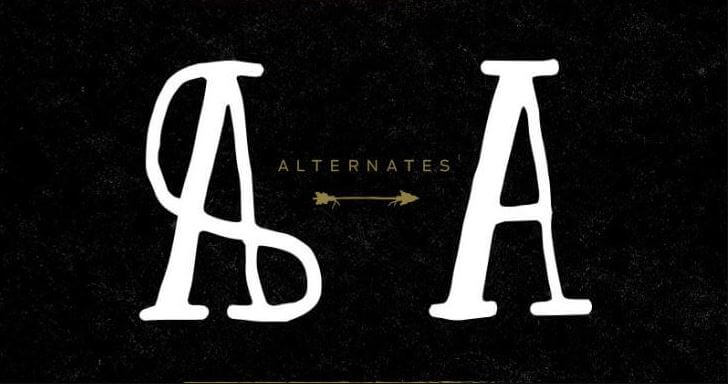
Hand-Drawn Font
The hand-drawn font of firefly style is one of the splendid script handwritten fonts. Now we have got were given this font for free of charge. An exceptional font that can be used to create logos, posters in arts and design courses. Like drawing font, it looks cool.
This recuperation of hundred-three thousand and seventy-eight days-antique typeface album preserves the format’s clean beauty.
Style Of Hand-Drawn Font